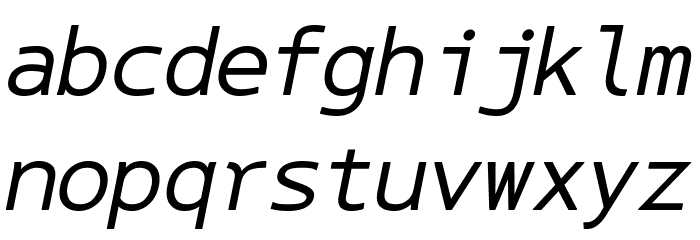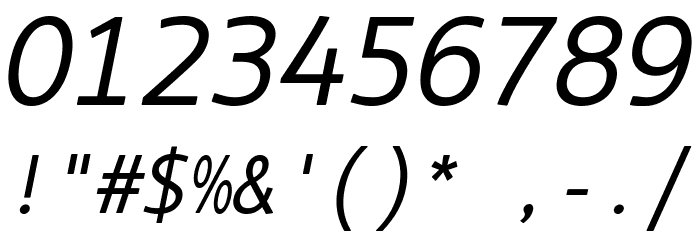
LT Asus Mono Italic Font
This font features a clean, monospaced design with a distinct italic slant, giving it a modern and technical appearance. The characters are evenly spaced, which is characteristic of monospaced fonts, making it ideal for coding and technical documentation. The italic style adds a dynamic and contemporary feel, while maintaining readability and clarity. The strokes are consistent in weight, providing a uniform look across all characters. The font includes a full set of uppercase and lowercase letters, numbers, and a variety of special characters, ensuring versatility for various applications.
A modern, monospaced italic font with consistent stroke weight and clear readability.
- Proposed Projects: Ideal for coding environments, technical documentation, and any project requiring a clean, modern typeface.
- Use Case: Coding, Technical documentation